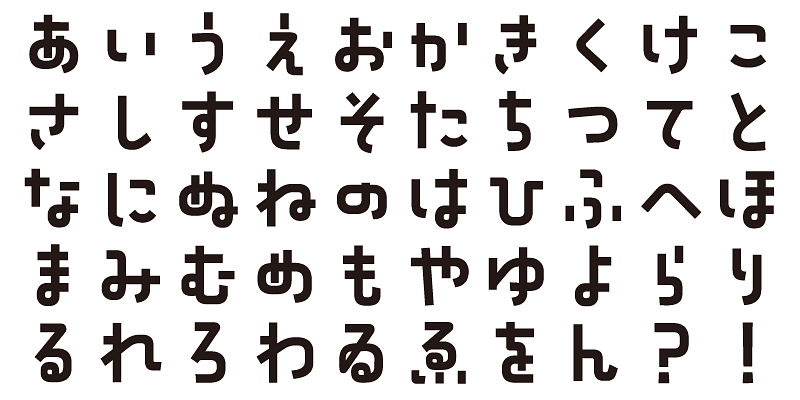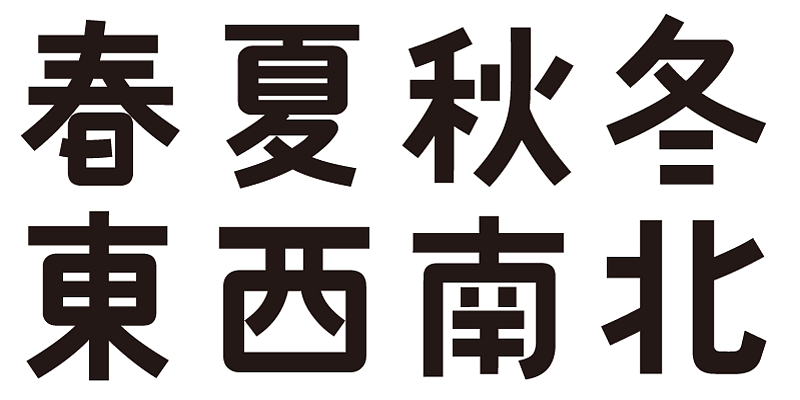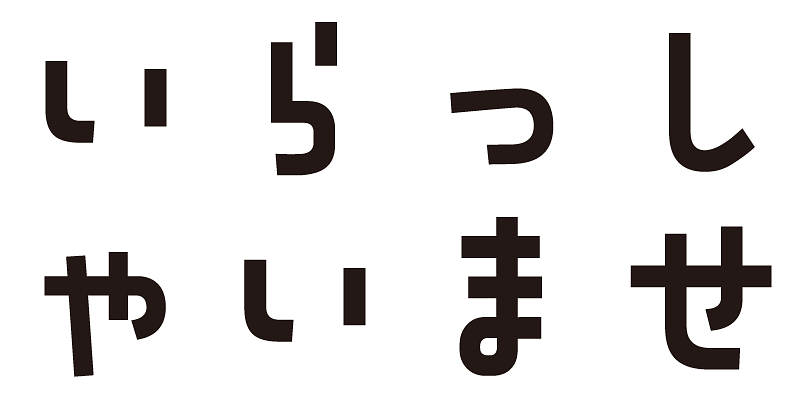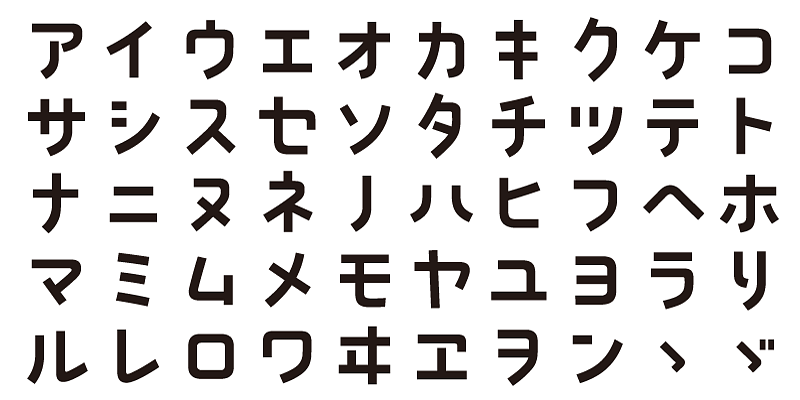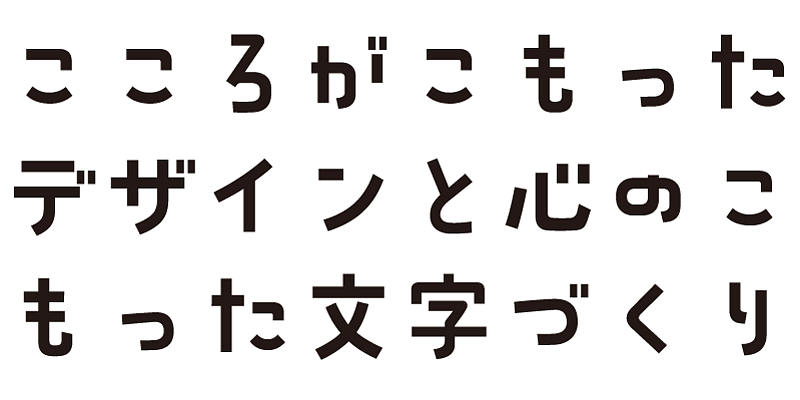
This typeface features crisp straight lines with a touch of softness, giving it a slightly sophisticated feel.
This font includes 1,000 kanji characters, as well as hiragana, katakana, alphanumeric characters, and punctuation marks.
We design typefaces with the hope that they will add underlying meaning to words expressed. We wish the user to feel good and experience comfort and joy when using these typefaces.